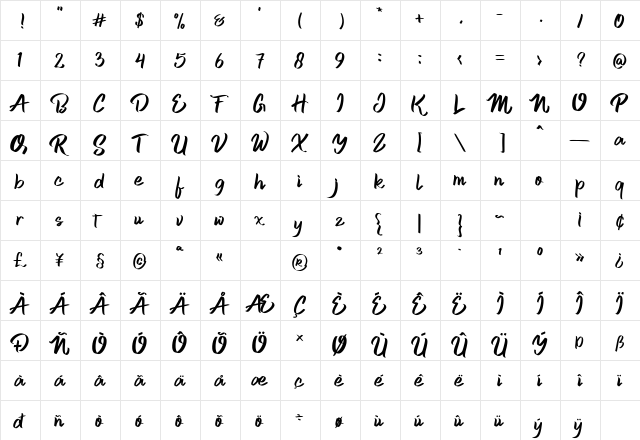
Skid Rock Regular
| Foundry | Hans Co |
| Designer | Burhan Afif |
Design Context for Skid Rock Typeface
Skid Rock is a composed and adaptable typeface that performs quietly and consistently across a wide range of design contexts.